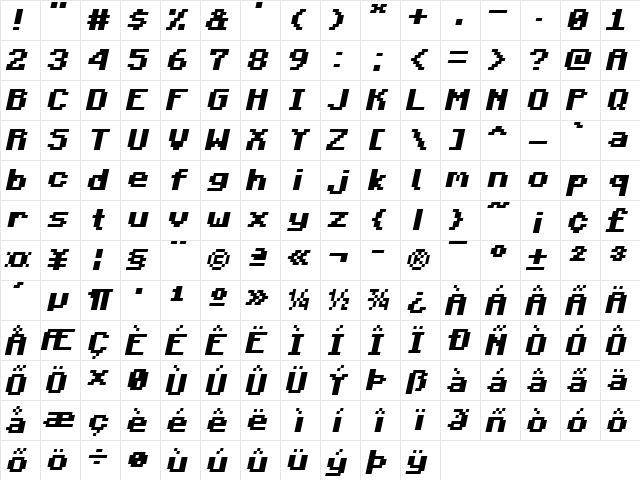
mac's Tweaked Minecraft Bold Italic Free Font
mac's Tweaked Minecraft Bold Italic
mac's Tweaked Minecraft Family
Design Context for mac's Tweaked Minecraft
mac's Tweaked Minecraft is a composed and adaptable typeface that performs quietly and consistently across a wide range of design contexts. The slanted form adds forward momentum and visual energy. Its bold stroke weight gives it real presence on the page.